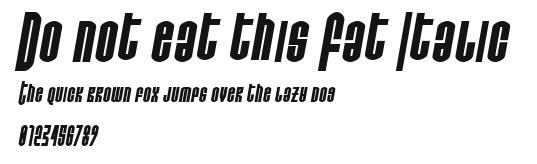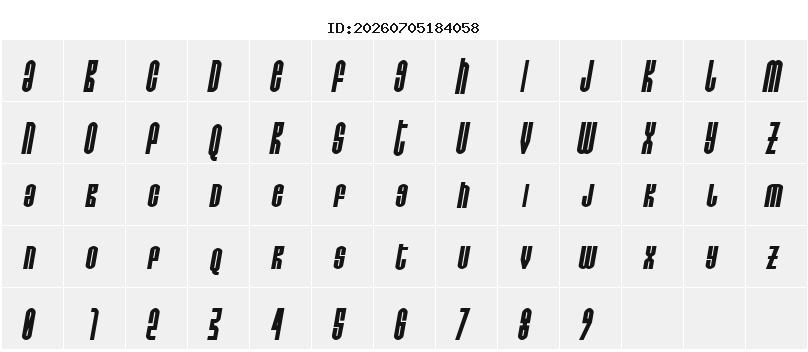
• Font Name: Do not eat this Fat Italic
• Full Font Name: Do not eat this Fat Italic
About Do not eat this Fat Italic.ttf
Do not eat this Fat Italic.ttf is a modern, elegant sans-serif font designed for ultimate readability and visual harmony. Perfect for branding, headlines, web design, and print materials.